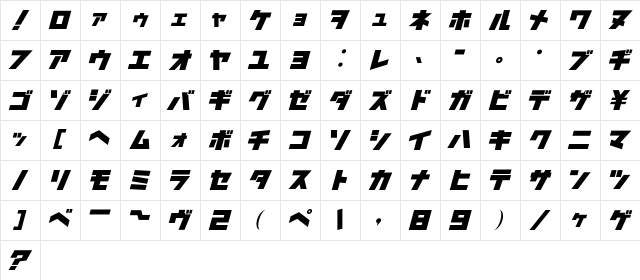
SsTaitohSquare Katakana Free Font
SsTaitohSquare Katakana
Style: Katakana
Complete SsTaitohSquare Katakana glyph index. Displaying only characters natively supported by SsTaitohSquare Katakana font.
Design Context for SsTaitohSquare
SsTaitohSquare is a composed and adaptable typeface that performs quietly and consistently across a wide range of design contexts.